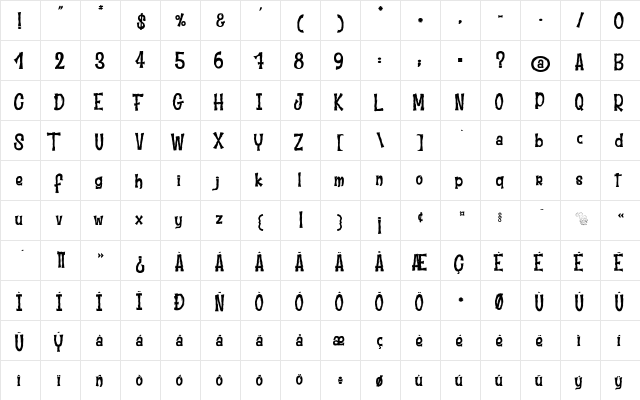
Moustache Club Regular
| Foundry | dcoxy Medina Gregory |
| Designer | dcoxy Medina Gregory |
Design Context for Moustache Club Typeface
Moustache Club is a composed and adaptable typeface that performs quietly and consistently across a wide range of design contexts.